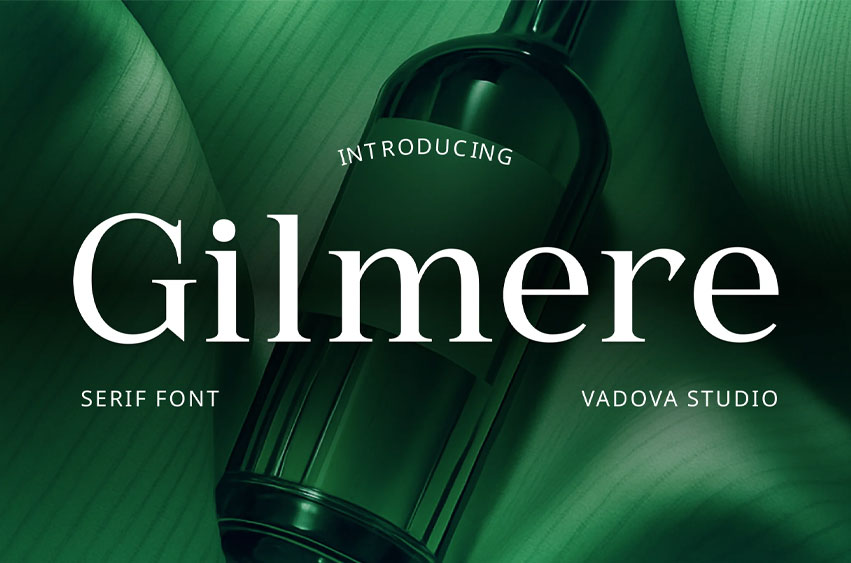
Gilmere Font is a sophisticated serif font with elegant, well-defined curves and an enduring charm. This typeface combines traditional serifs with modern style, resulting in a versatile, timeless design. Its high contrast and sleek proportions give it a refined and professional look, ideal for creating bold statements in both print and digital media. Whether used for headlines, branding, or editorial work, Gilmere brings a touch of class and modernity to any design.
Gilmere is perfect for creating sophisticated branding, luxury packaging, high-end editorial content, upscale event invitations, and premium product design. Its timeless appeal works well for both traditional and modern designs, making it a great choice for corporate identity, upscale marketing materials, fashion publications, and more.